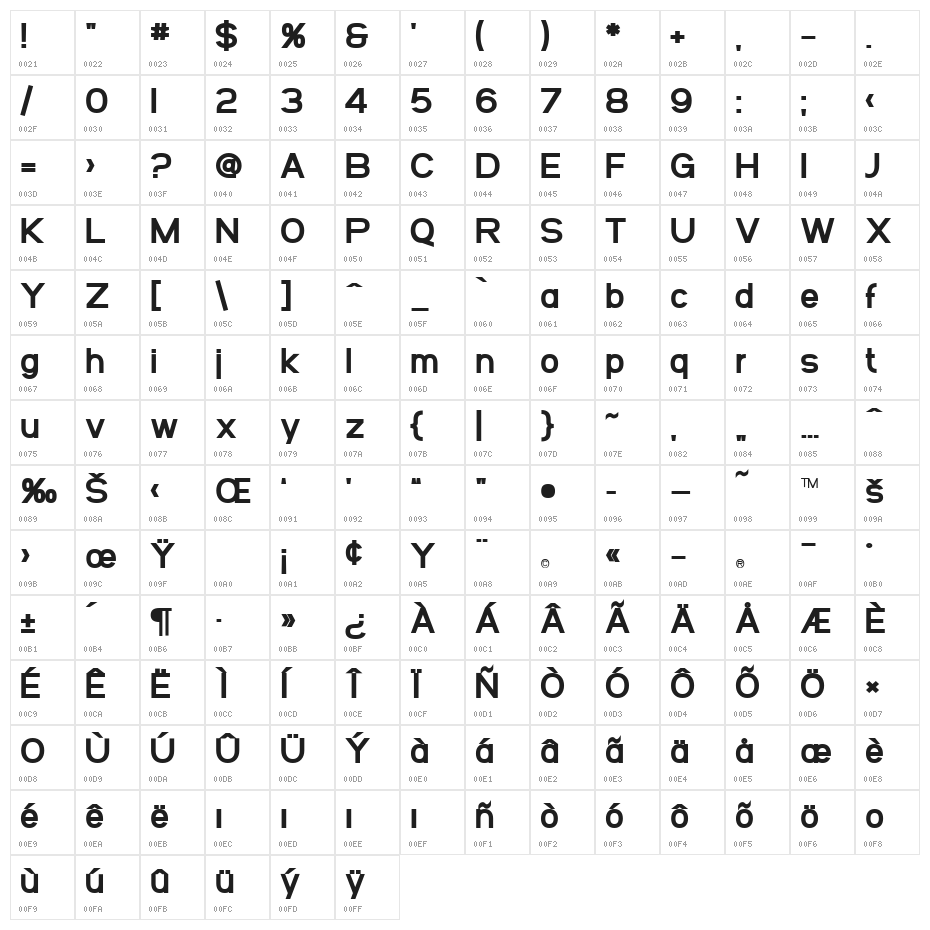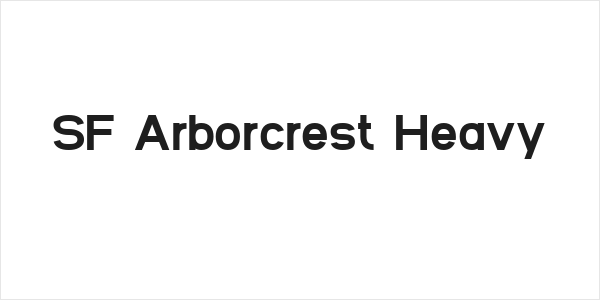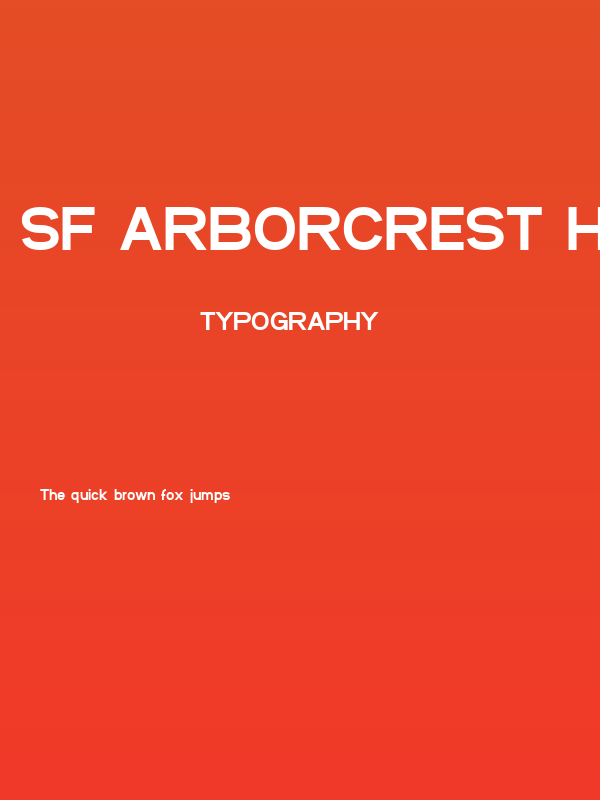
SF Arborcrest Heavy Font
SF Arborcrest Heavy Description
This typeface features a bold and robust design with clean, straight lines and uniform stroke widths, making it highly legible and impactful. The uppercase letters are strong and commanding, while the lowercase letters maintain a consistent and harmonious flow. The numerals are clear and easily distinguishable, complementing the overall boldness of the design. Special characters are well-defined, adding versatility to the font. Its geometric structure and lack of serifs give it a modern and professional appearance, suitable for various applications where clarity and emphasis are required.
Proposed ProjectsIdeal for branding, advertising, headlines, and signage where a strong visual impact is needed.